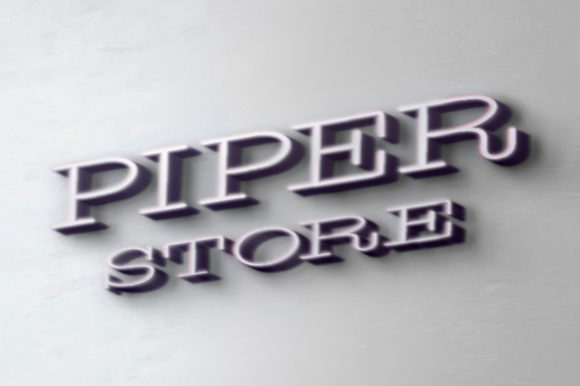
The Piper: A Thin Lettered and Vintage Styled Slab Serif Font
The Piper is a beautifully crafted slab serif font characterized by its thin lettering and vintage style. This versatile typeface can easily be matched to an incredibly large set of projects, making it a valuable addition to your creative toolkit.
Key Features of The Piper
- Thin Lettering: Features elegant, slender characters that enhance readability while maintaining a stylish appearance.
- Vintage Style: Incorporates classic design elements that evoke nostalgia and charm.
- Slab Serif Structure: Maintains the characteristic thick, rectangular serifs typical of slab serif fonts.
- Versatile Application: Suitable for a wide range of projects, from print to digital media.
- Stand-Out Quality: Designed to elevate your creative ideas and make them visually appealing.
Ideal Uses for The Piper
The Piper’s unique characteristics make it particularly well-suited for:
- Headlines and titles that need a touch of elegance.
- Branding and logo design that requires a vintage flair.
- Editorial layouts and book covers that benefit from classic typography.
- Invitations and greeting cards aimed at creating a nostalgic feel.
- Website headers and digital content focused on storytelling or heritage themes.
When incorporating The Piper into your designs, consider the following tips:
- Use for both large headlines and smaller text blocks to showcase its versatility.
- Experiment with different sizes to highlight the font’s elegant details.
- Consider pairing with complementary sans-serif fonts for body text to create contrast.
- Take advantage of its adaptability across various themes and styles in your projects.
The Piper is an excellent choice for designers looking to add a thin lettered and vintage styled slab serif font to their typographic toolkit. Its ability to enhance various design projects makes it stand out in the world of typography. Whether you’re working on branding, creating layouts for nostalgic events, or developing print materials, The Piper offers the perfect blend of elegance and vintage charm.
Add The Piper to your creative projects and explore how it can enhance your designs with its stylish and readable style. From inviting headlines to engaging text blocks, this font provides the tools to create impactful and memorable typography that resonates with audiences.